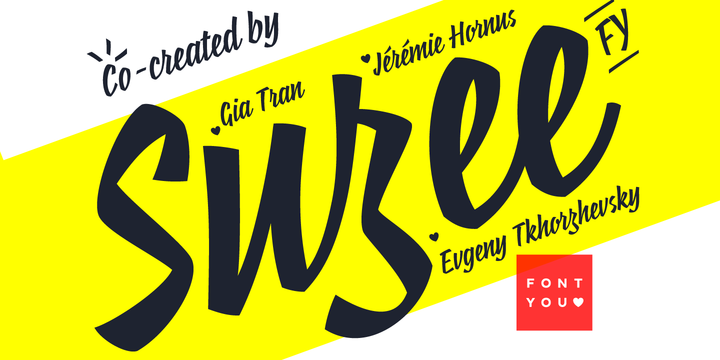
Suzee FY is a semi-connected vintage script inspired by marker felt hand letterings.
With its condensed and sharp look, this font will perfectly fit on posters, menuboards, packaging and all retro designs!
Suzee FY comes out with 1 weight.
Suzee FY was co-created by Evgeny Tkhorzhevsky & Fontyou team on co-create.fontyou.com, the first collaborative type foundry.